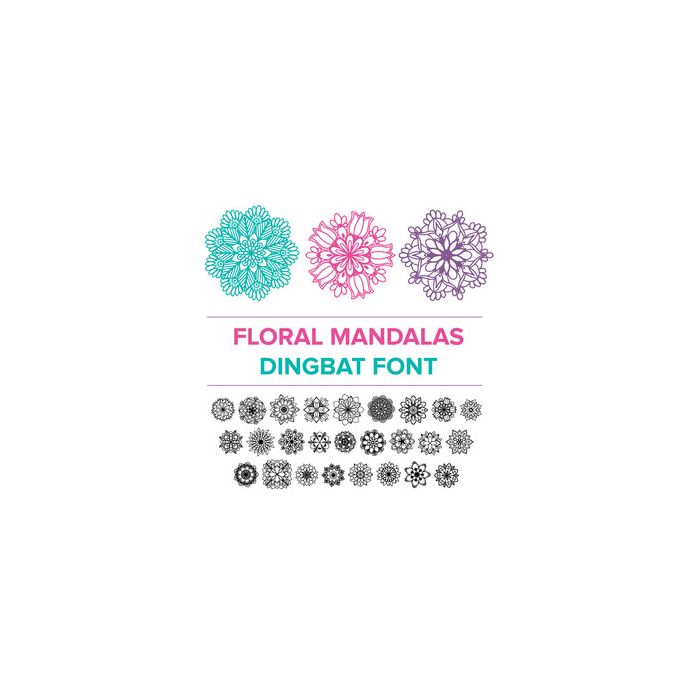
This mandala inspired font comes in OTF format. Each uppercase and lowercase letter A-Z corresponds with a hand drawn mandala. There are 26 characters total.